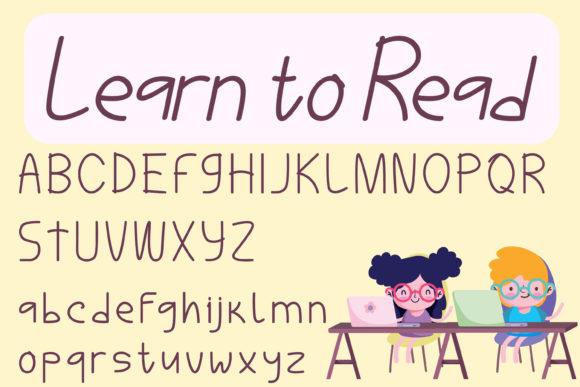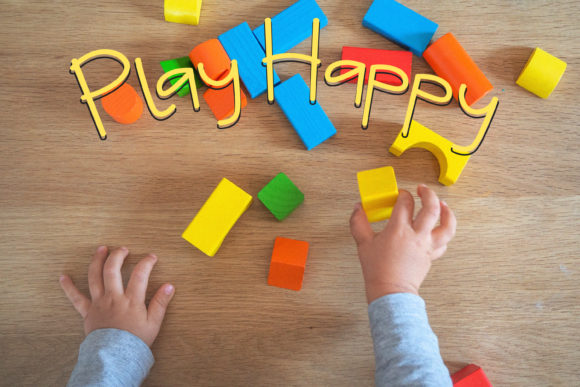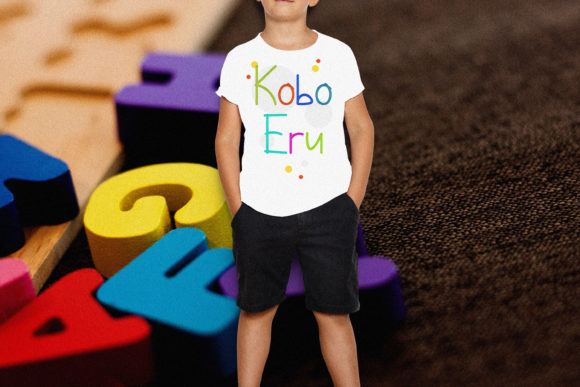
Introduction to Koboeru Font
Koboeru is a cute and friendly display font, with playful vibes and a unique character.
This font is perfect for logo branding, product designs, quotes, posters, displays, websites, invitation cards, greeting cards, headlines, websites, magazines, and various other design projects .